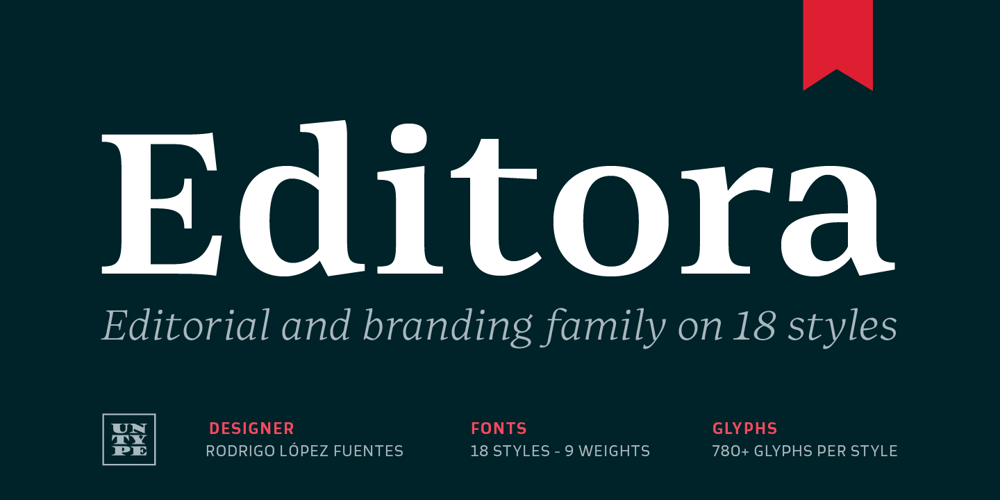
Editora Font Family was designed by Rodrigo López Fuentes and published by Untype. Editora contains 18 styles and family package options. Editora is a modern reinterpretation of the neoclassical style, crafted to meet the needs of editorial design with grace and sobriety. With 18 styles, including 9 weights and their matching italics, Editora spans a broad range of uses, from extended reading in its medium weights to sophisticated headlines and distinctive subtitles in its bolder and lighter variants.Enhanced by a rich array of OpenType features—including stylistic alternates, ligatures, small caps, old-style, modern, and tabular numerals, as well as a variety of borders and ornaments—Editora provides all the essential tools to elevate editorial design into a refined visual experience.Ideal for publications seeking a sophisticated touch, Editora offers a balanced range of styles that ensure a seamless reading experience, transforming every editorial project into a visual delight.